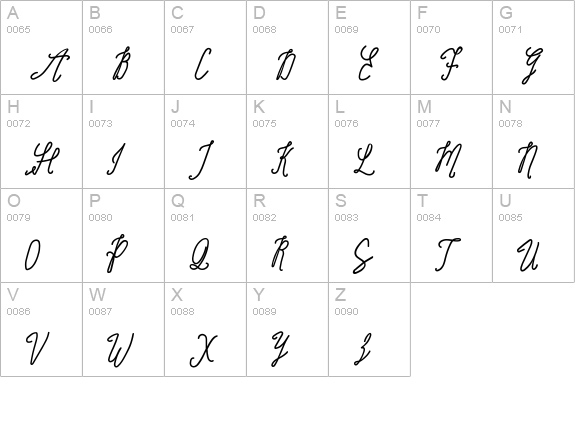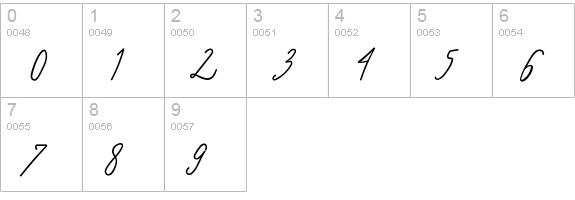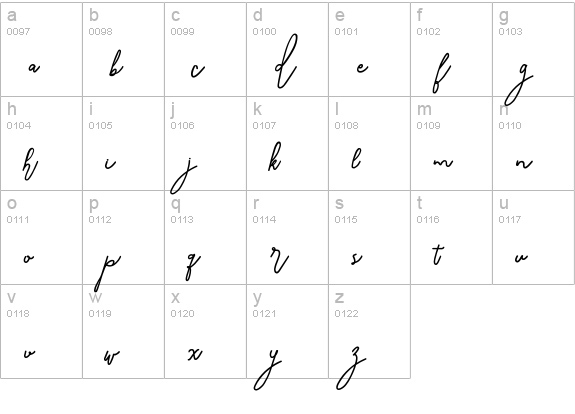
SignatureScriptExtraBold Font Details
Introducing SignatureScriptExtraBold, a stunning and elegant font that exudes sophistication and style. With its bold and distinctive design, this font is perfect for making a statement on any project. The strong lines and luxurious curves of SignatureScriptExtraBold make it ideal for logos, branding, invitations, and more. And the best part? SignatureScriptExtraBold is completely free to download at FontsMarket.com! You can add this versatile font to your collection without any cost, making it a valuable resource for your creative endeavors. Don't miss out on the opportunity to elevate your designs with the timeless beauty of SignatureScriptExtraBold. Download it today and let your creativity shine!